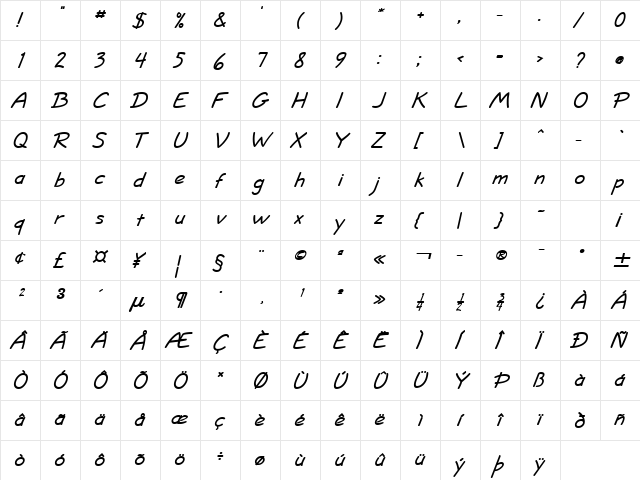
Jolt BoldItalic
Design Context for Jolt Typeface
Jolt is a composed and adaptable typeface that performs quietly and consistently across a wide range of design contexts. The dynamic lean of this cut emphasises speed and emphasis in any layout. The heavy weight commands attention and anchors typographic hierarchies.
Pro Tip: Use Jolt for emphasis, pull quotes, and subheadings where its slanted energy can add rhythm to the layout.